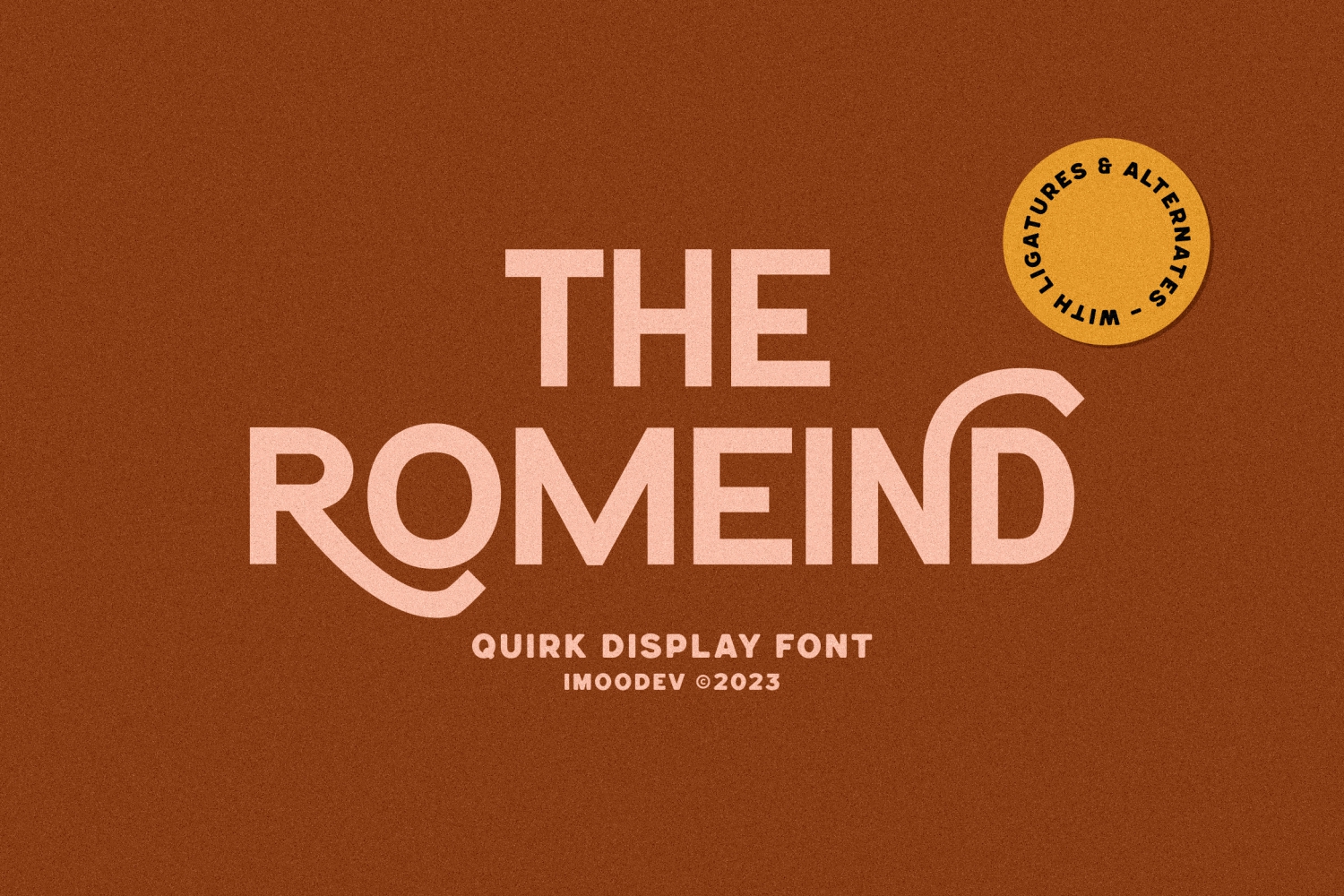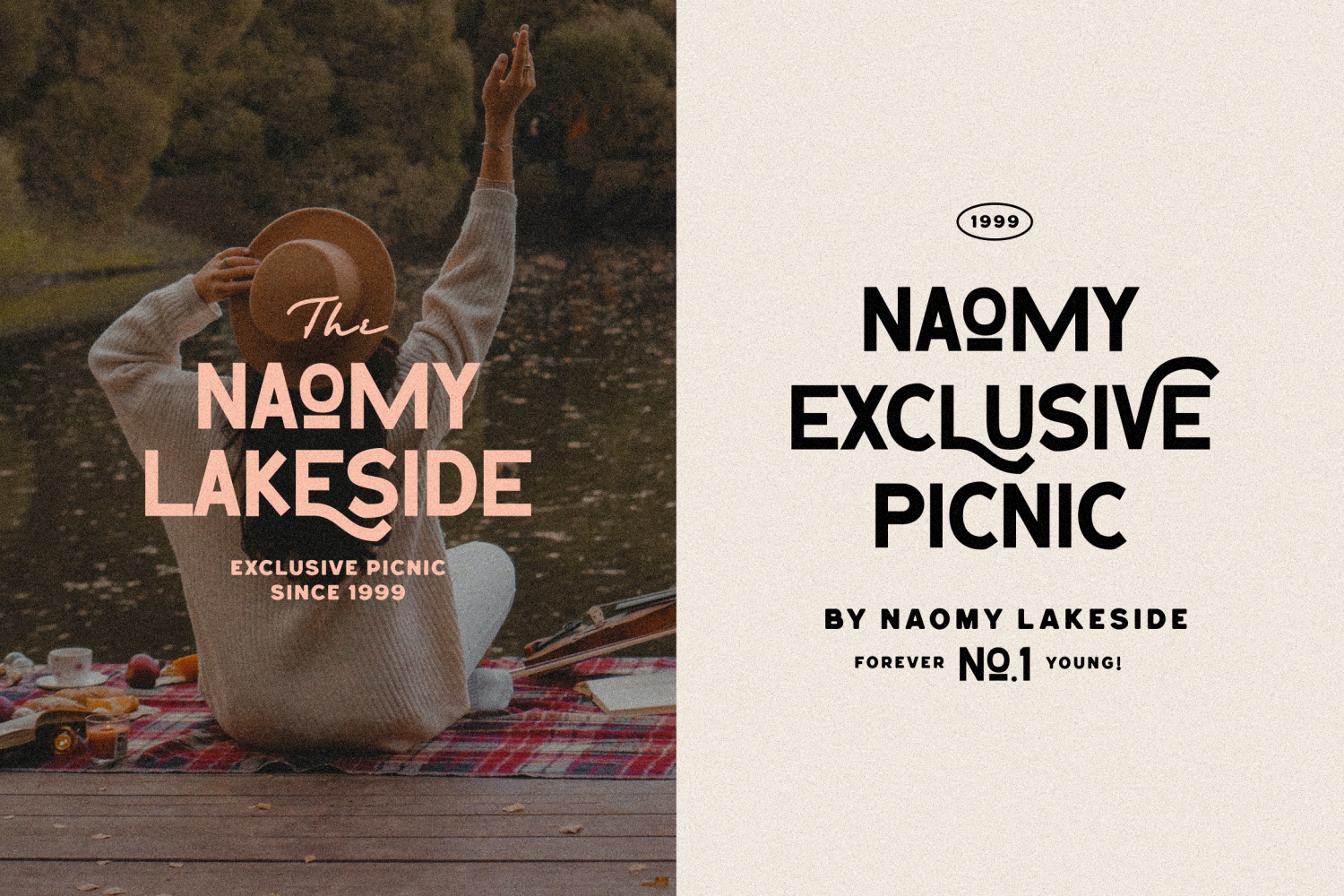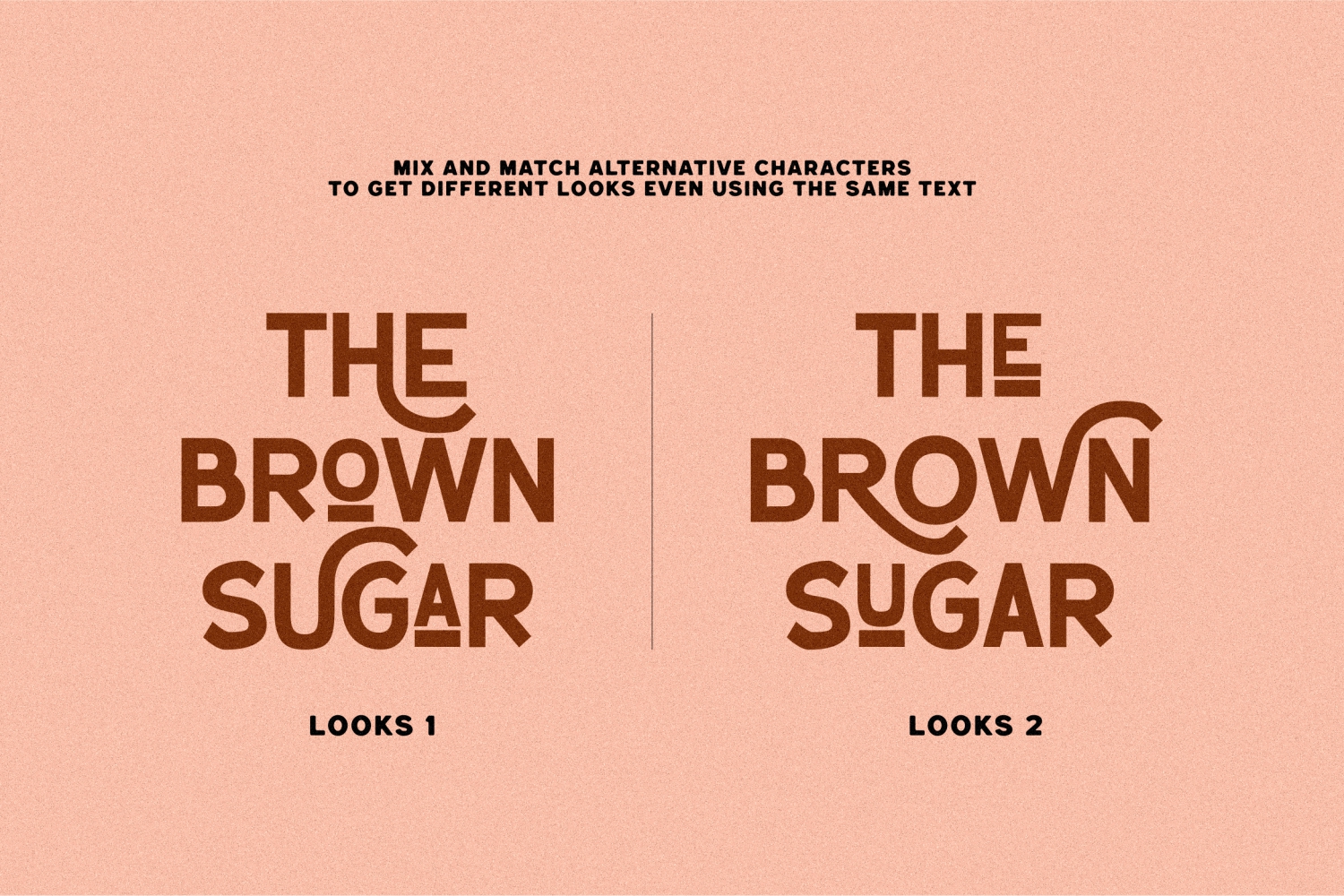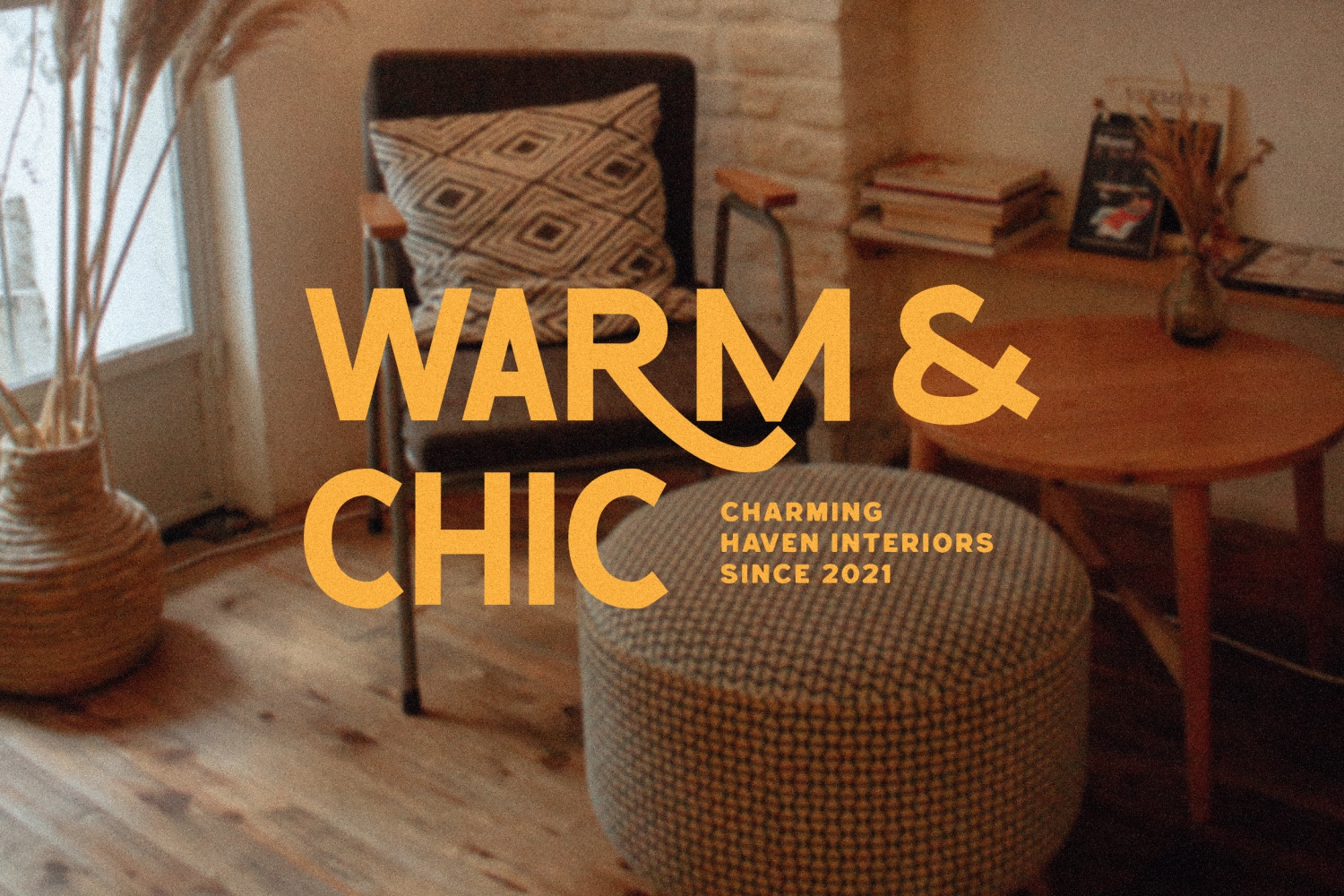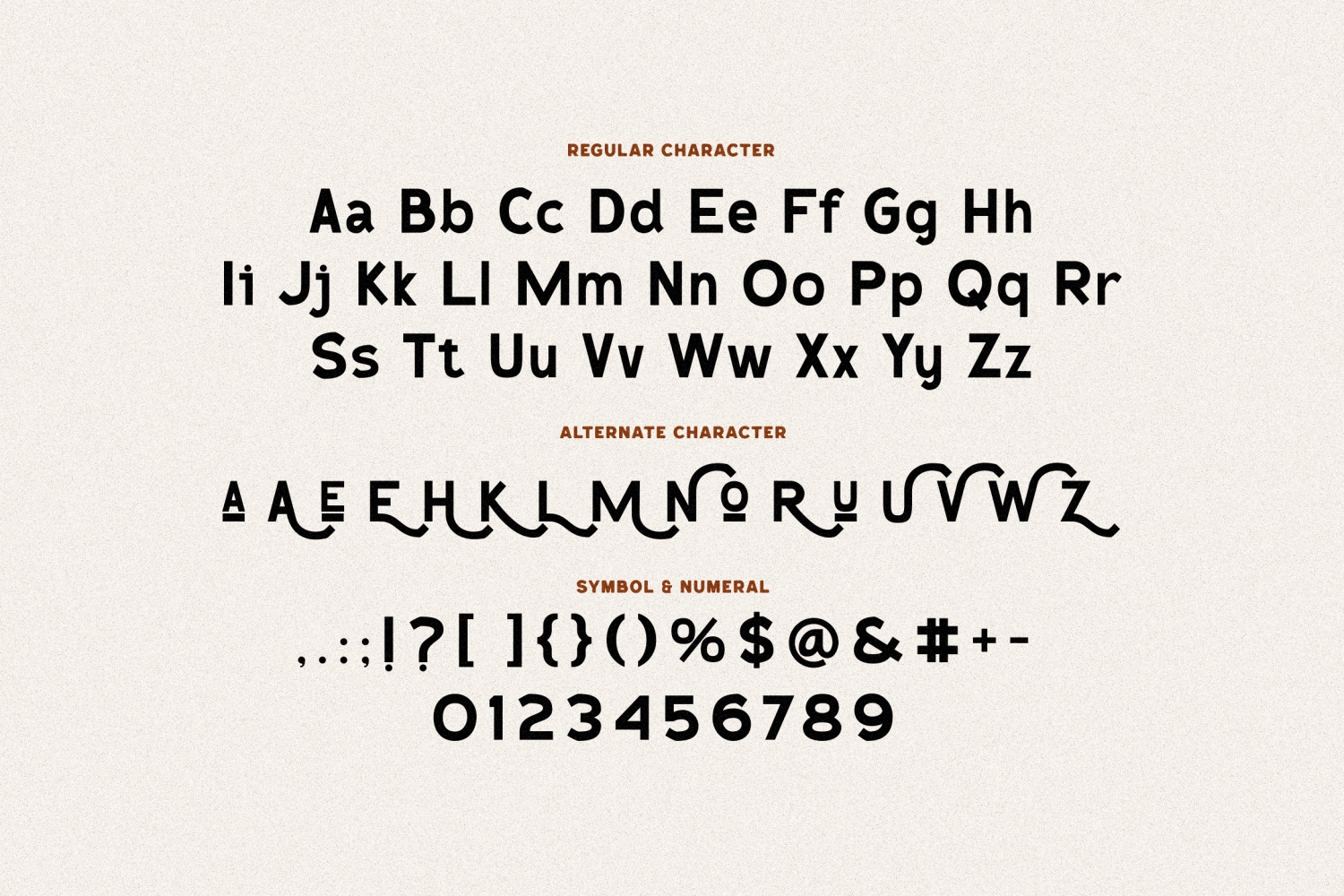
The Romeind is a quirky display font with a modern twist, designed to bring playful personality and charm to your typography. Its bold geometric forms are paired with unique alternate characters and creative ligatures, giving each word a distinctive, eye-catching style. Perfect for branding, packaging, event posters, and lifestyle products, The Romeind balances fun and sophistication, making it ideal for both contemporary and retro-inspired projects.
With a wide selection of alternates, ligatures, numerals, and symbols, The Romeind offers endless creative possibilities. Designers can mix and match characters to create multiple variations, ensuring each project feels fresh and original. Whether used for logos, editorial headlines, interior branding, or social media graphics, The Romeind captures attention with its playful curves and modern aesthetic.